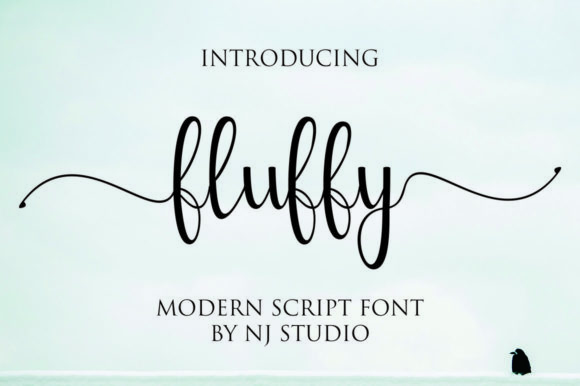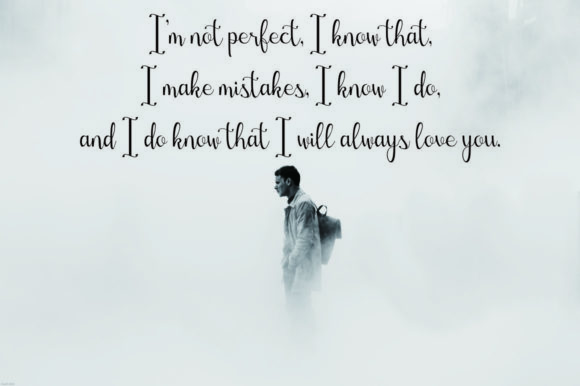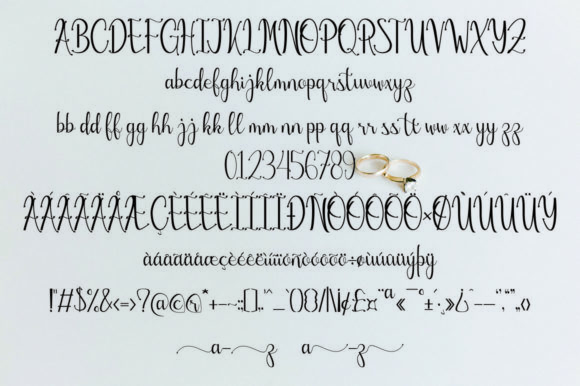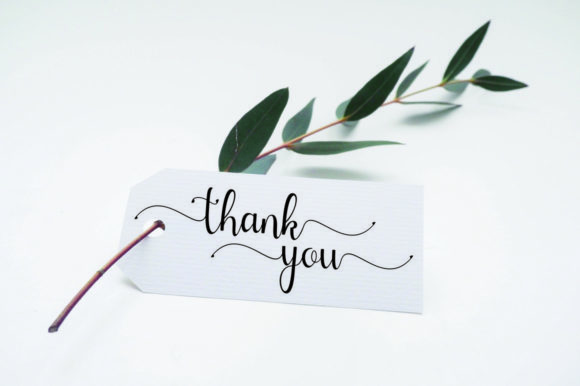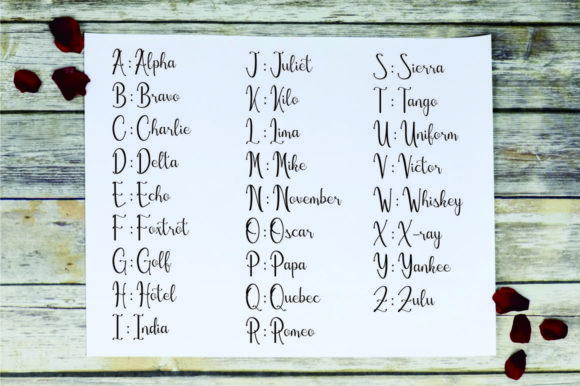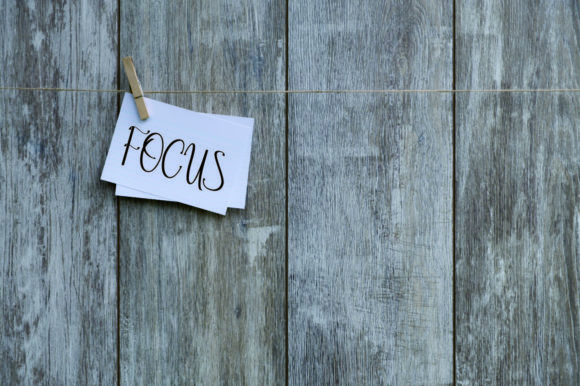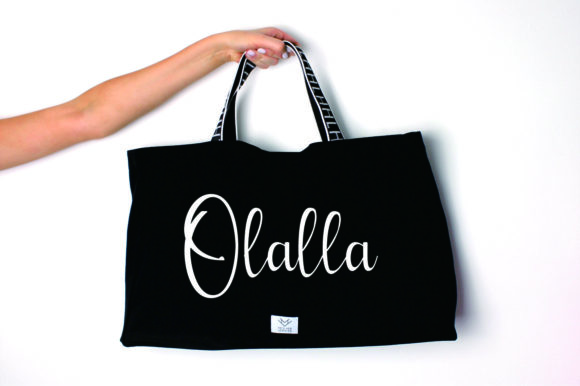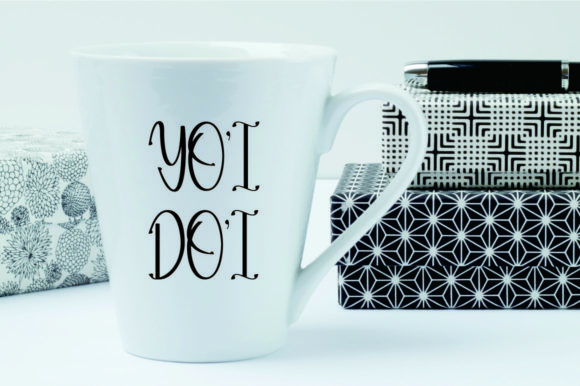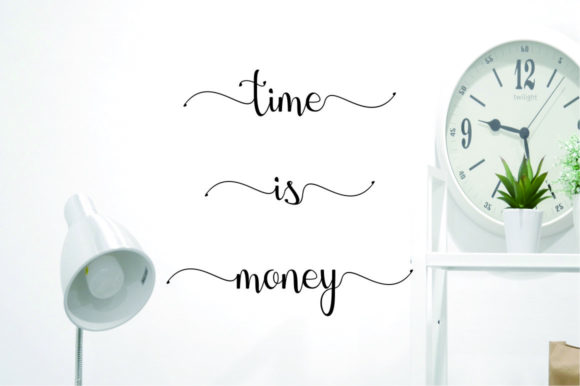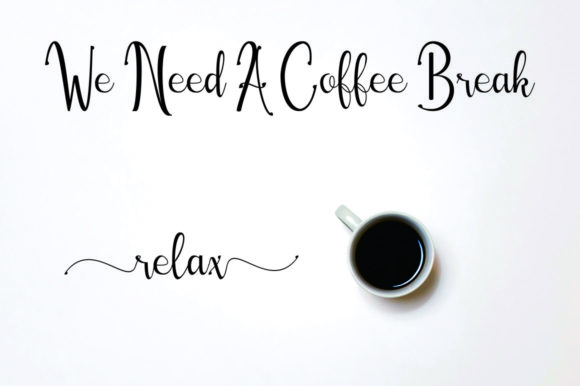
Fluffy Font
About Fluffy Font
Fluffy is modern and sweet, but also cheerful. This versatile script font has a wide range of applications ranging from stationery to branding, and is guaranteed to add a unique touch to your next design.